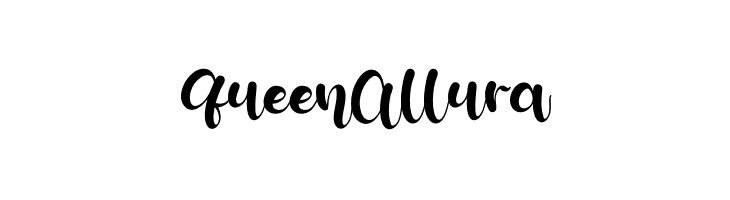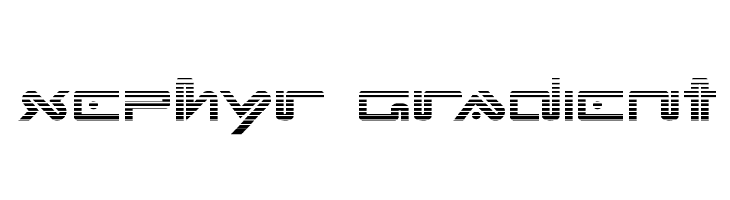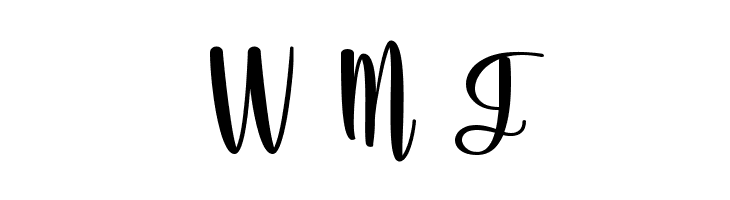
A bold, geometric font with a three-dimensional effect and contrasting outlines.
A playful, handwritten font with smooth curves and a casual style.
A bold, geometric font with a modern, industrial style.
A modern, geometric font with consistent stroke widths and a clean, technical appearance.
A graceful, handwritten font with a flowing, cursive style.
A bold, angular font with reflective elements and a futuristic style.
A modern, light, italic sans-serif font with a sleek and minimalistic design.
A dynamic script font with a shadow effect, offering a playful and energetic style.
A bold, modern sans-serif font with clean lines and uniform stroke width.
An elegant cursive script with flowing, ornate characters.